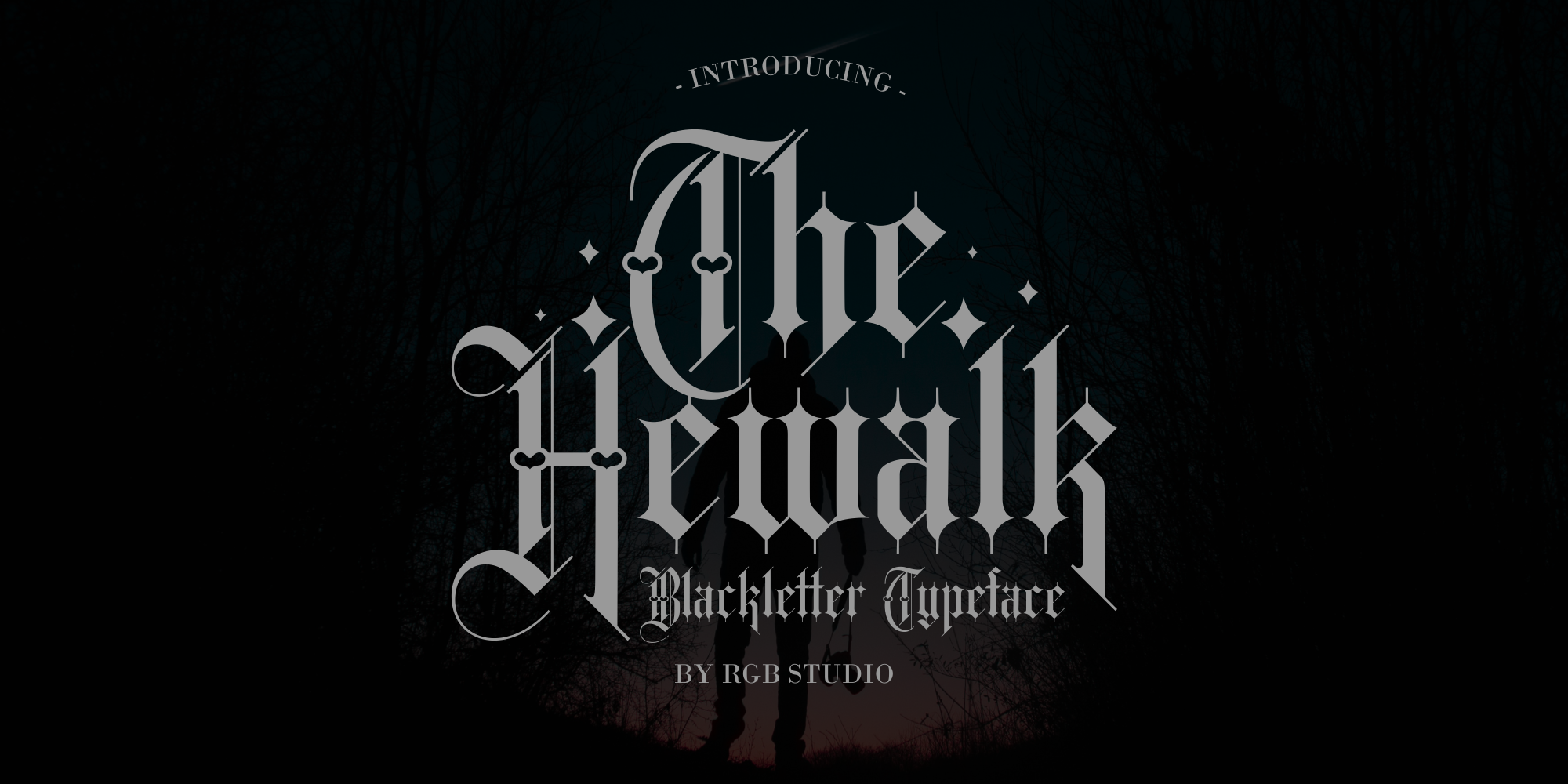
Hewalk Font is perfect for outdoor adventure gear branding, hiking trail equipment advertising, wilderness expedition company logos, walking tour service marketing, pedestrian pathway signage, outdoor fitness program promotions, nature conservation organization materials, walking festival event graphics, outdoor lifestyle brand identities, and adventure travel agency presentations. Its dynamic walking character makes it ideal for projects requiring outdoor movement and pedestrian adventure authenticity.
What makes Hewalk Font exciting is its energetic embodiment of outdoor movement and walking adventure with dynamic letterforms and motion-inspired characteristics that capture the essence of pedestrian exploration and outdoor activity excellence. The font features active proportions, movement-inspired details, and walking character construction that create authentic outdoor atmosphere and adventure appeal. Its dynamic personality brings energy and movement to contemporary designs while maintaining the clarity essential for outdoor communications and adventure presentations. The carefully crafted motion elements ensure visual movement while preserving the distinctive character that embodies the essence of walking adventure and outdoor excellence.
Hewalk Font comes in multiple active variations including Light, Regular, Medium, Bold, and Trail styles. Each family member maintains the distinctive walking character while offering comprehensive flexibility for outdoor typography and adventure brand system development. The complete font family includes alternate characters, outdoor symbols, and walking decorative elements that provide extensive tools for creating immersive outdoor design experiences and authentic adventure brand storytelling.
Whether you're developing outdoor brands, walking organizations, or adventure-focused projects, Hewalk Font Free Download provides the dynamic energy needed to communicate with outdoor enthusiasts and walking communities who appreciate pedestrian adventure and outdoor movement excellence. The font's active appeal resonates with hikers, outdoor professionals, and adventure seekers seeking authentic walking credibility and outdoor sophistication. Its comprehensive character set includes outdoor symbols and walking marks, making it perfect for creating complete adventure brand systems and memorable outdoor storytelling across diverse walking applications and movement-focused design projects that celebrate pedestrian exploration and outdoor excellence.